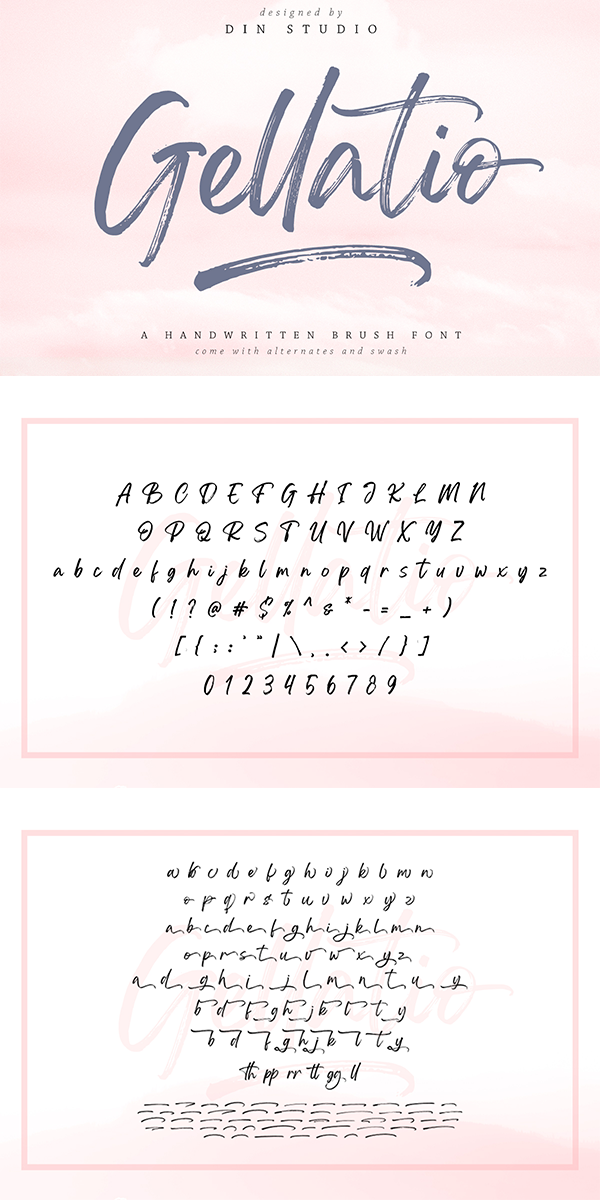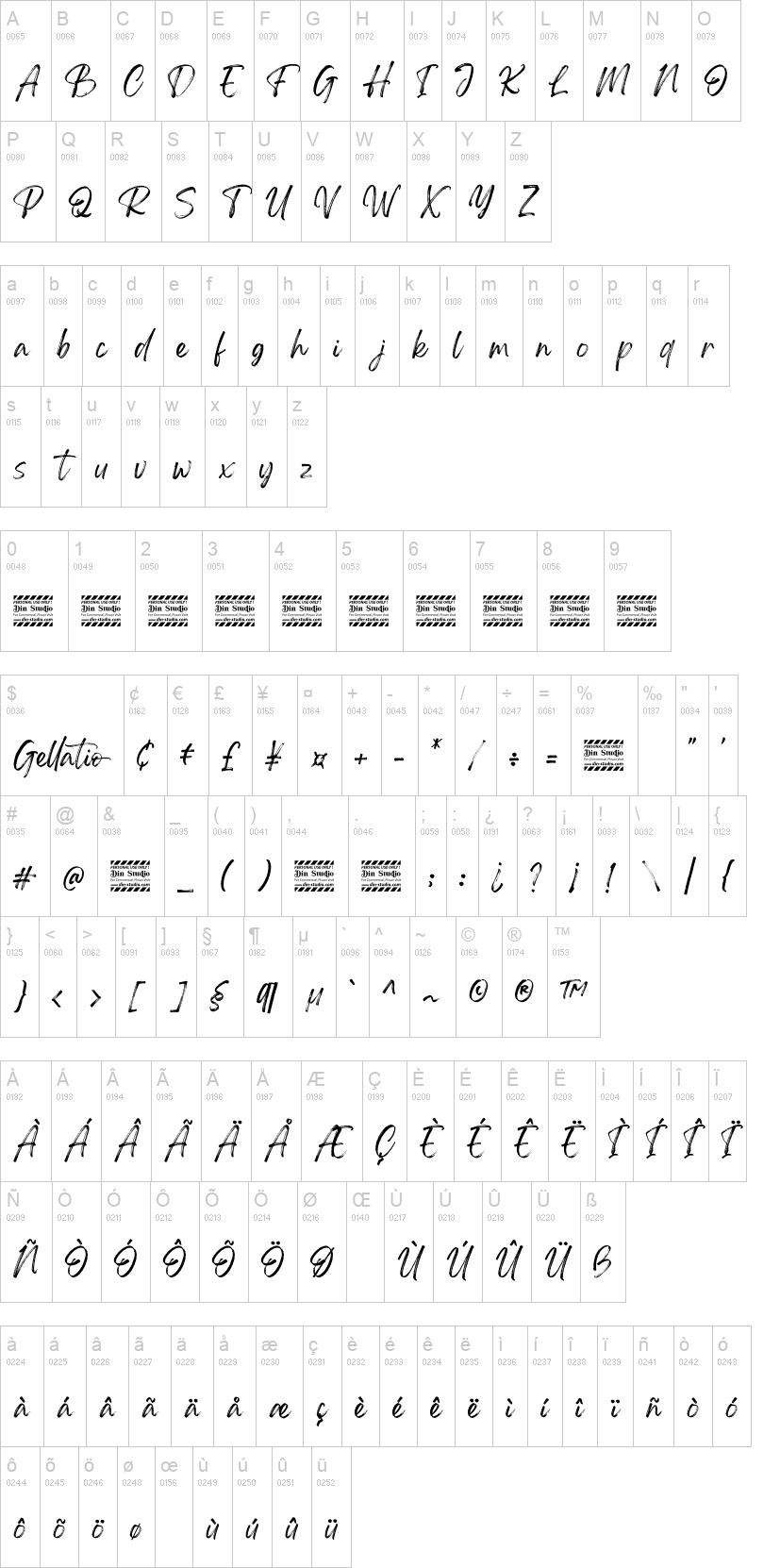
Say Hello to the Gellatio Chic Brush Font. Made from natural hand brush. it will make your design
project more beautiful. The font is suitable for any design like branding, fashion, print template, quotes,
wedding and etc.